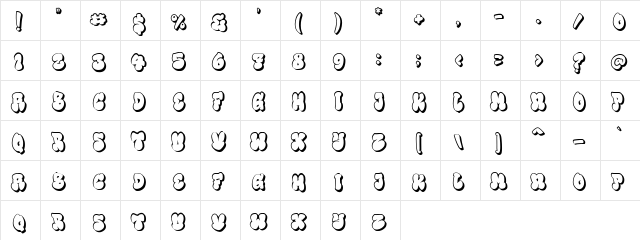
Street Urban Shadow
| Style | Shadow |
| Foundry | Blankids Studio |
| Designer | Bangkit Tri Setiadi |
Design Context for Street Urban Typeface
Street Urban brings ornamental detail and strong personality to headlines and identities, where visual impact matters more than quiet functionality.
Font Pairing: Pair with a clean neutral sans-serif for body copy to let Street Urban's character lead without overwhelming the composition.
Pro Tip: Use Street Urban exclusively at display sizes — it was designed to be seen, not read at length. Let a neutral companion handle body copy.